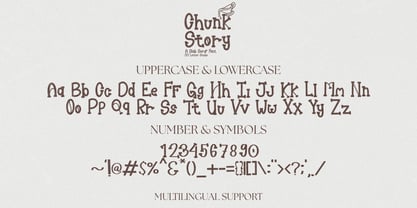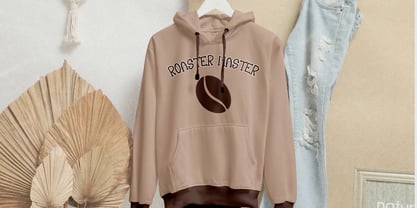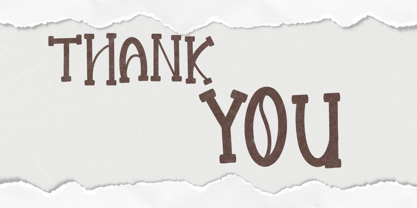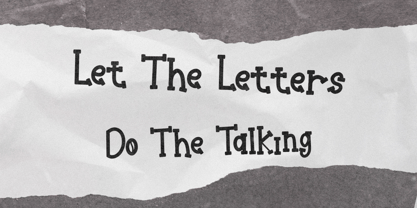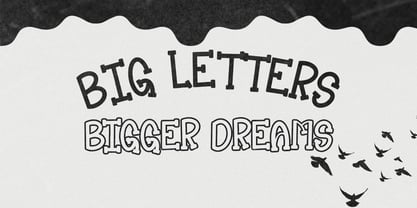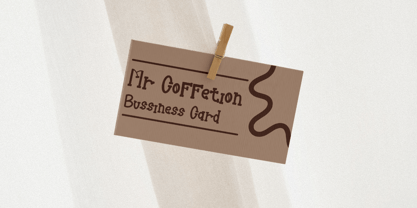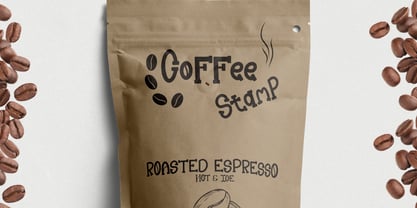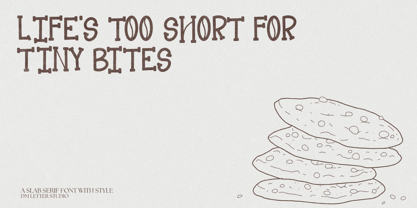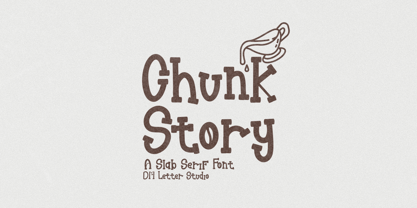
Chunk Story
The Chunk Story Font Family was designed by Dimas Prasetyo and published by DM Studio. Chunk Story contains 1 styles. More about this family
Chunk Story – Bold Vintage Slab Serif Font Chunk Story is a bold slab serif font with a sturdy presence and vintage soul. Crafted for designs that need confidence, structure, and a bit of storytelling charm, this typeface delivers bold slab serifs, consistent stroke widths, and strong letterforms. From branding projects to editorial layouts, Chunk Story slab serif font commands attention while maintaining readability and warmth. With its blocky structure and subtle retro curves, Chunk Story strikes a balance between industrial strength and approachable style. It’s the perfect choice for book covers, logos, posters, packaging, signage, and typographic headlines. Whether you're creating an old-school print look or giving your digital design a grounded, retro tone, Chunk Story is a reliable anchor. Chunk Story’s slab serif roots make it ideal for bold typographic hierarchy. The typeface offers a full uppercase and lowercase set, numerals, punctuation, and multilingual support. Its clean slab strokes make it easy to pair with lighter sans-serifs or scripts, providing a versatile base for modern, vintage, or editorial themes. This font is beginner-friendly and compatible with all major design platforms, including Adobe Illustrator, Photoshop, InDesign, Canva, Cricut Design Space, and more. Whether you're a small business owner, print designer, or digital creator, Chunk Story adds solid, stylish typography to your toolbox.